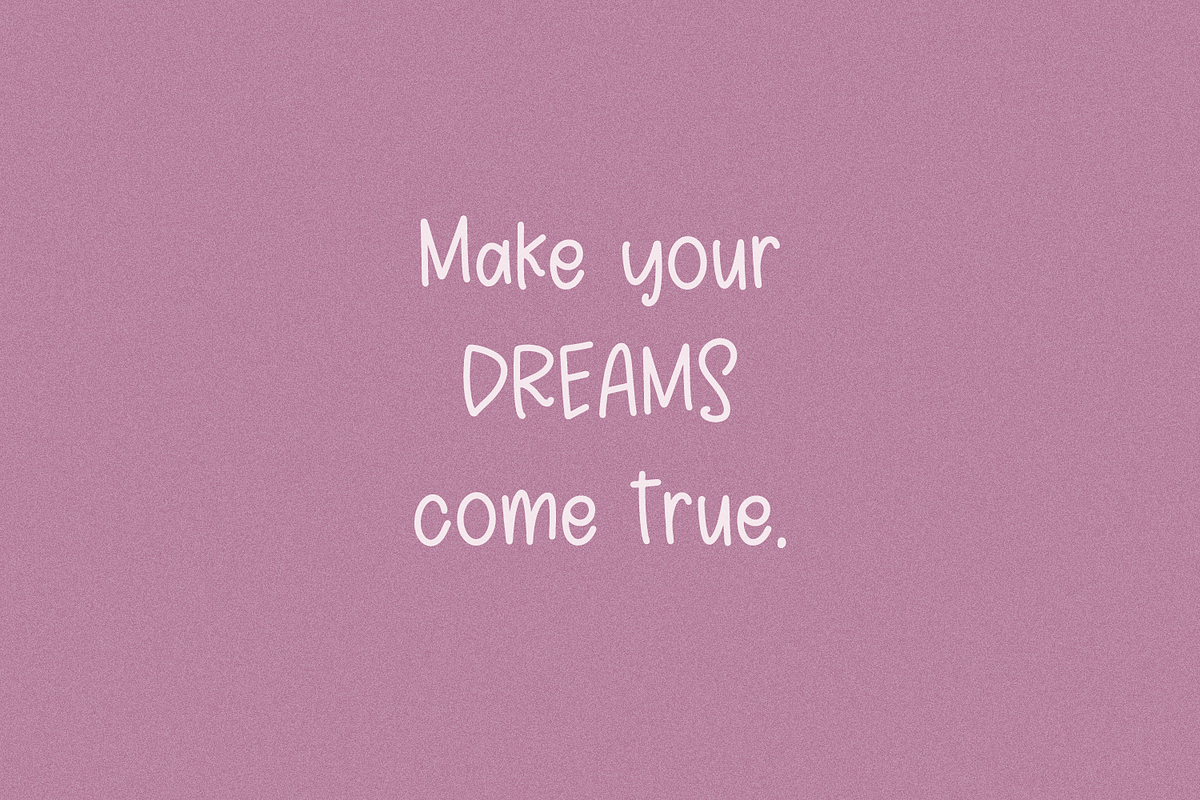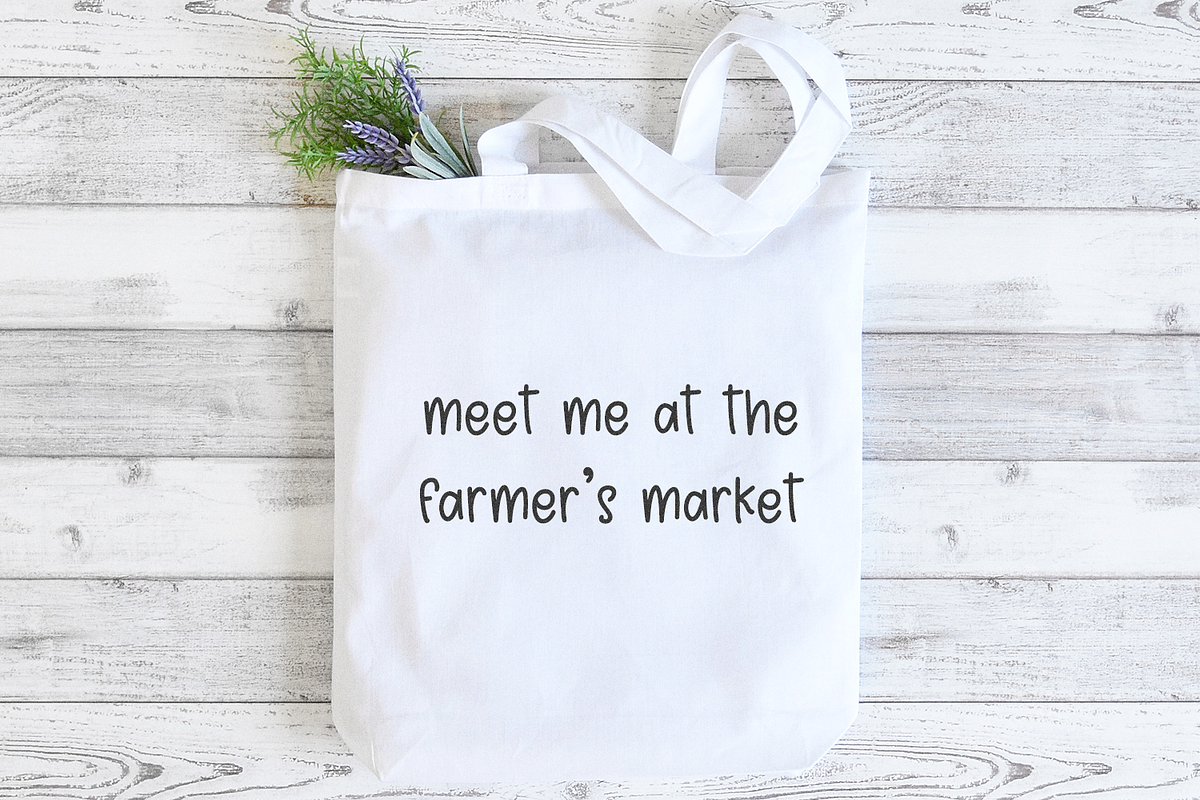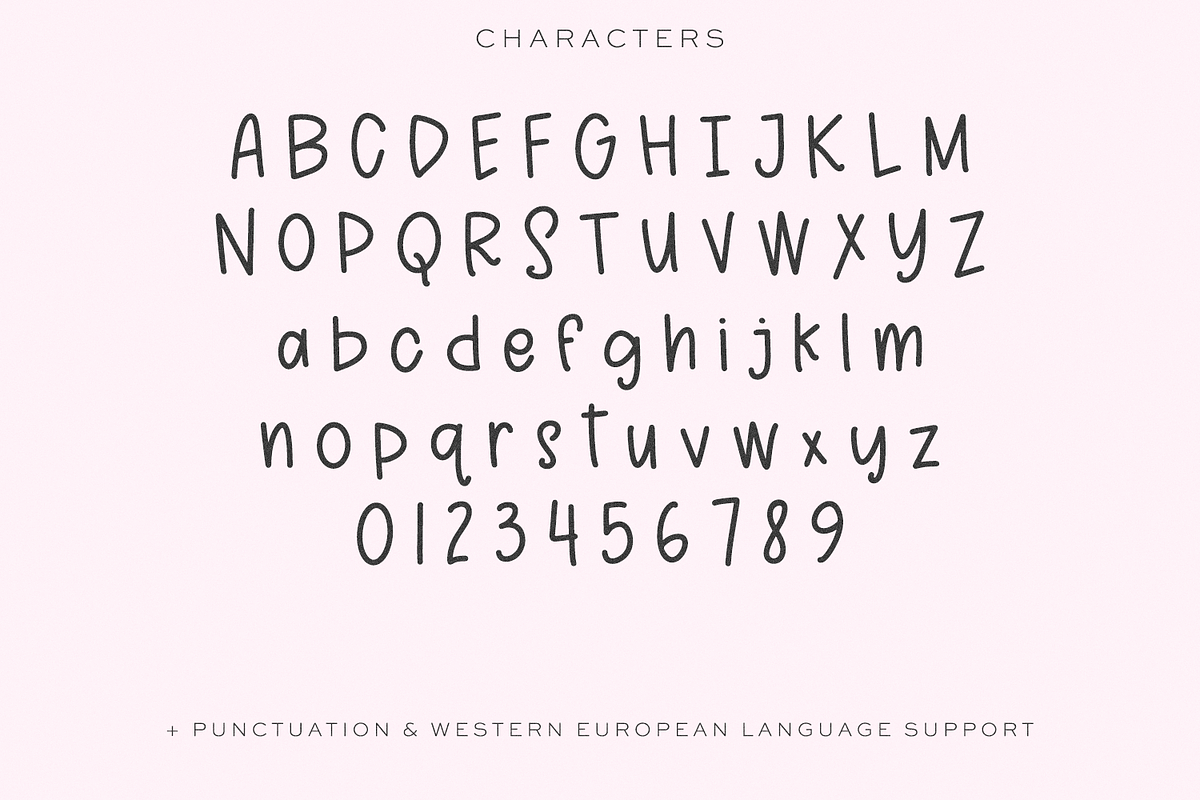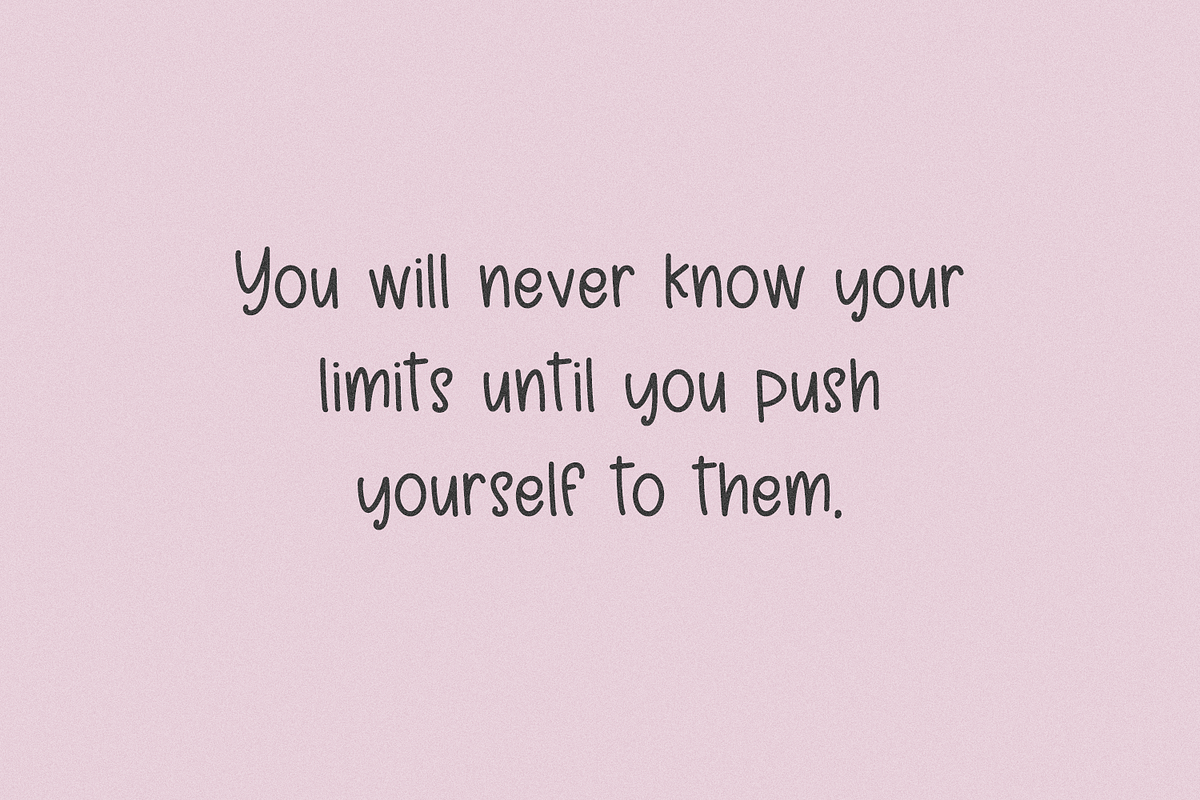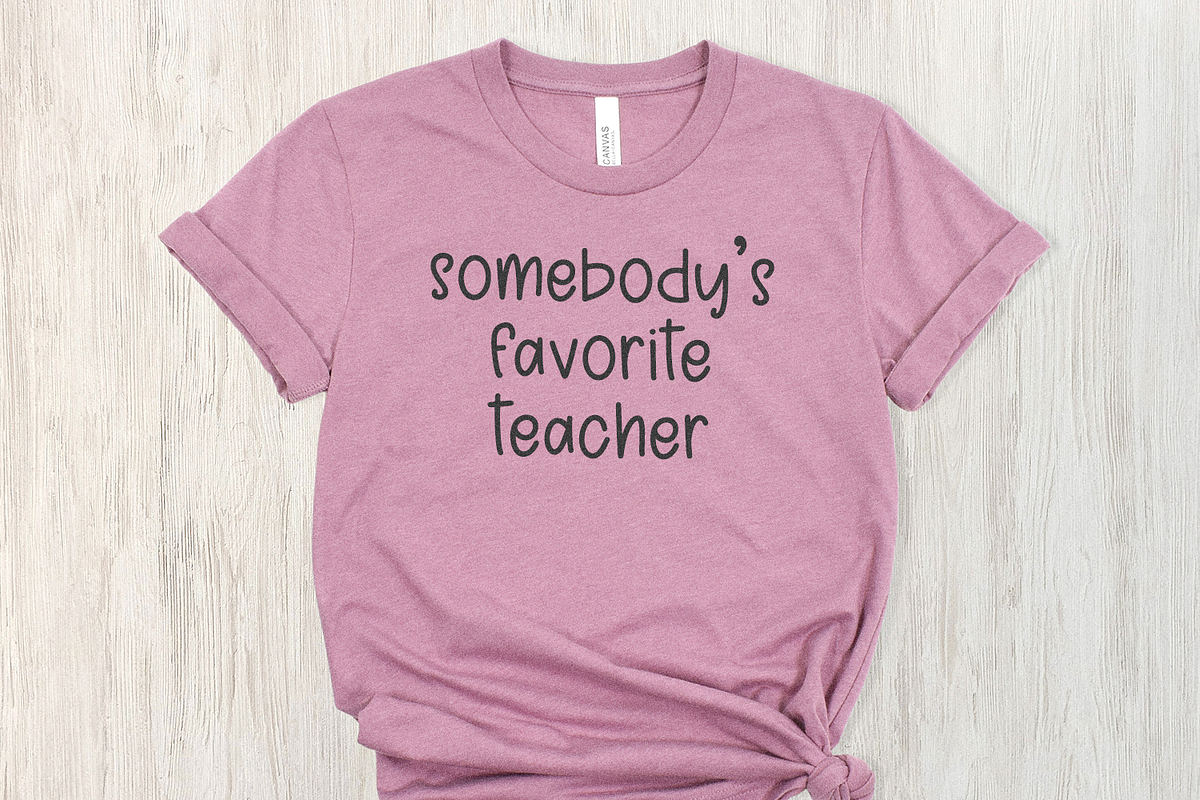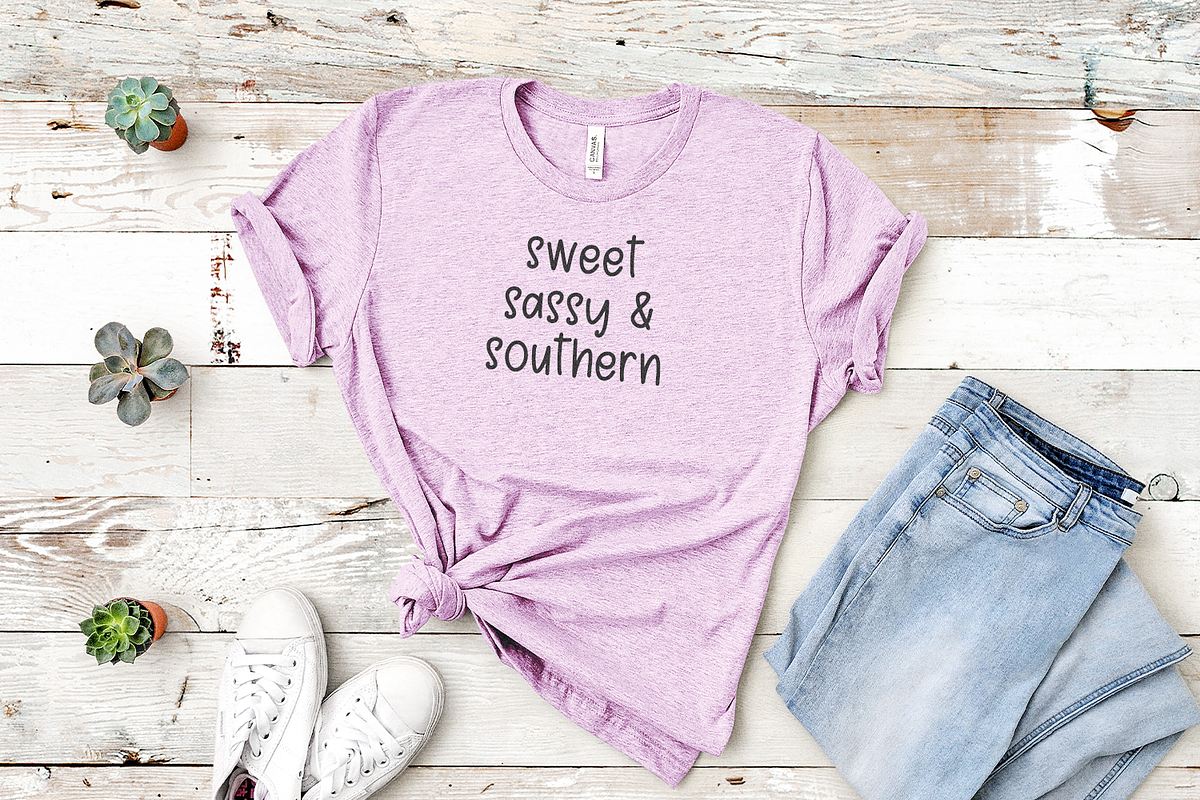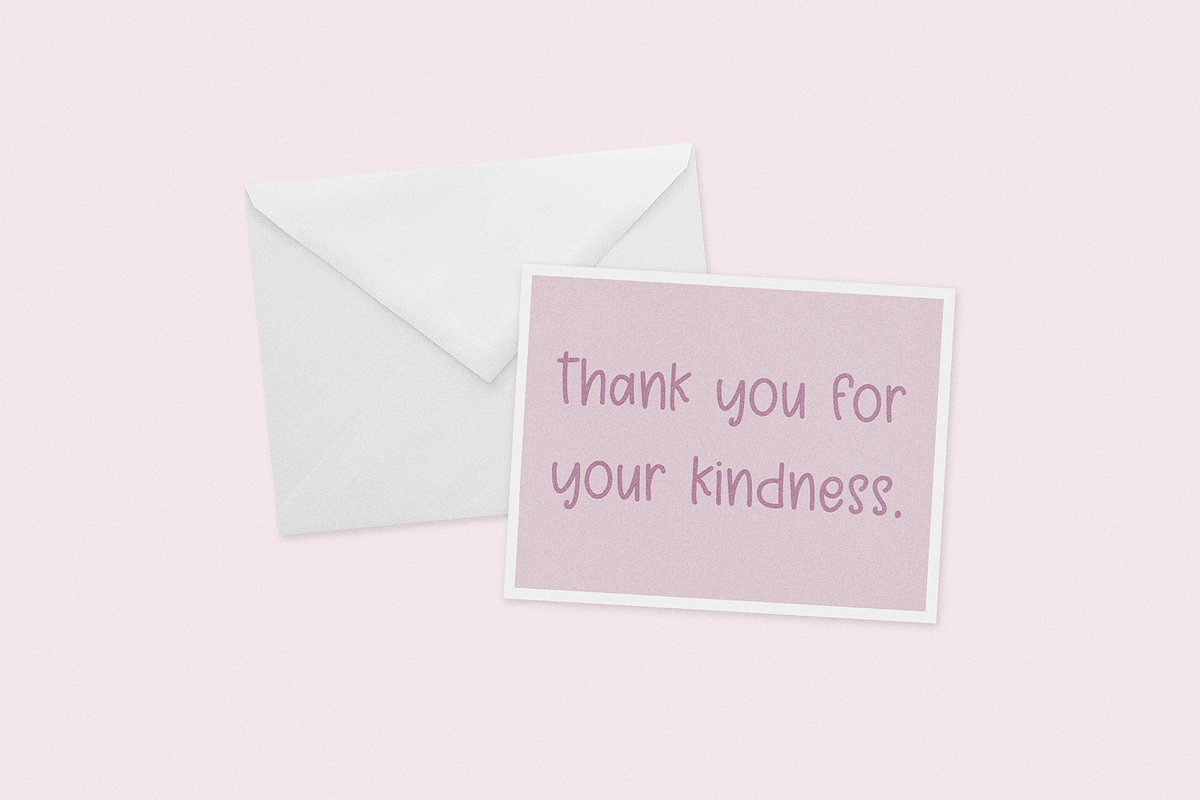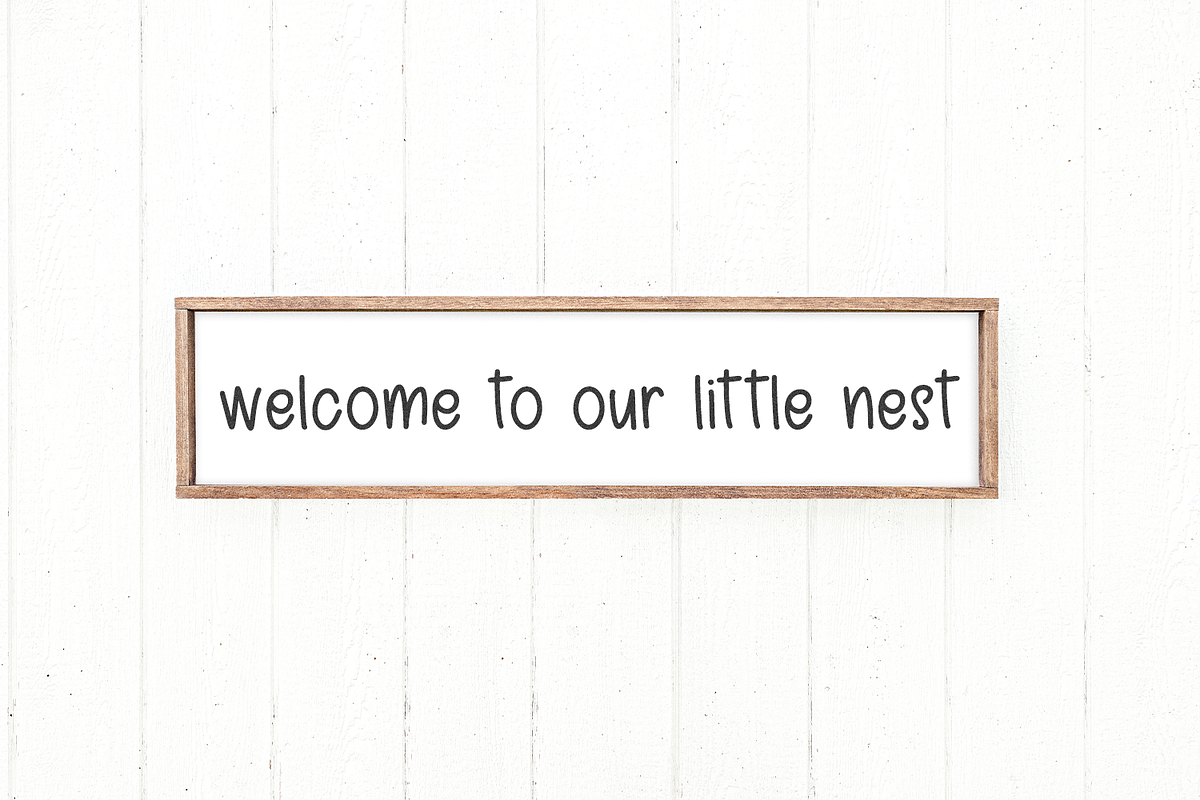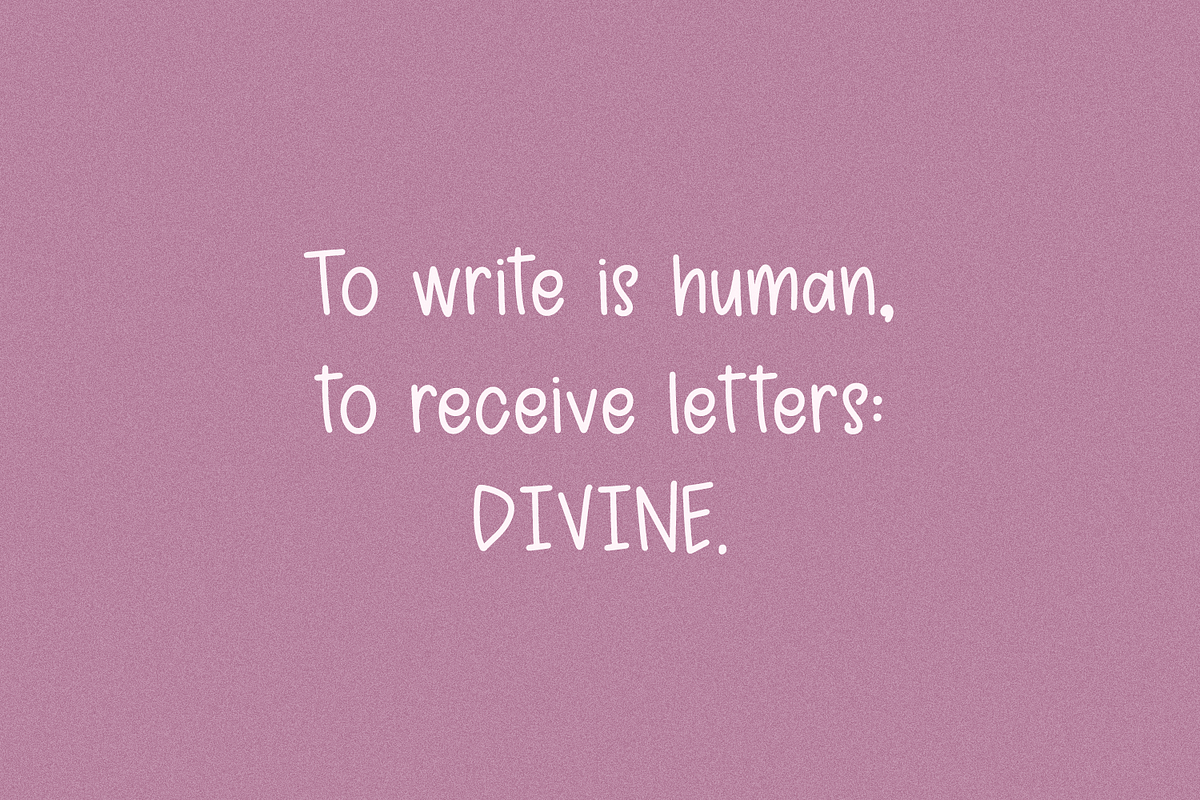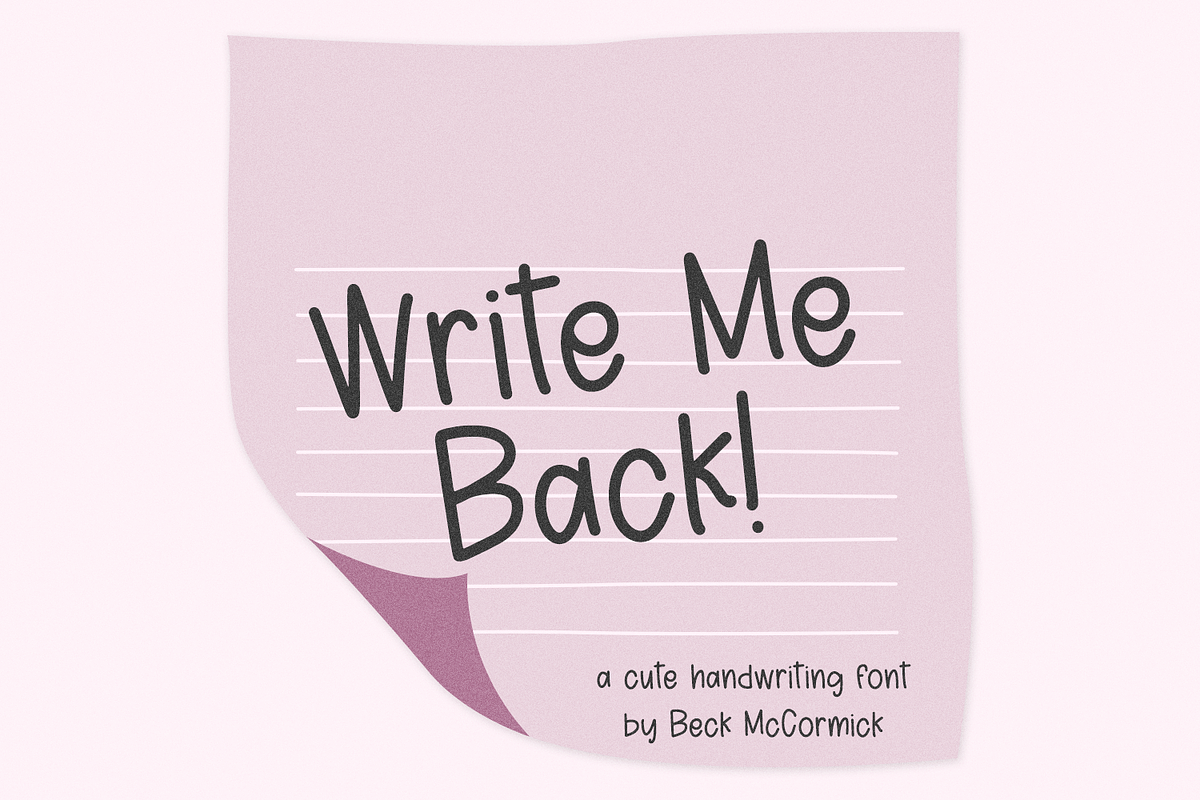
Write Me Back Sans
Write Me Back Sans is a cute handwritten sans font. This font is neat & tidy, with a child-like quality. Because of this, it would make a great addition to a teacher’s font collection, children’s books, or classroom decor. It could also be used for handwriting practice for young learners, or people who want to improve their printed handwriting. Write Me Back Sans is also perfect for logos & branding, greeting cards, painted banners, digital planners, note-taking apps, Canva, Cricut projects, Silhouette projects, designing SVG files, laser cutting projects, & more.
Write Me Back Sans includes:
- full upper + lowercase characters
- numbers + punctuation
- PUA-encoding
- Western European language support - English, French, Spanish, Portuguese (Brazil), Portuguese (Portugal), Italian, German (Germany), German (Austria), Dutch, Danish, Swedish, Norwegian (Bokmål and Nynorsk), Finnish, Icelandic, Irish, Welsh